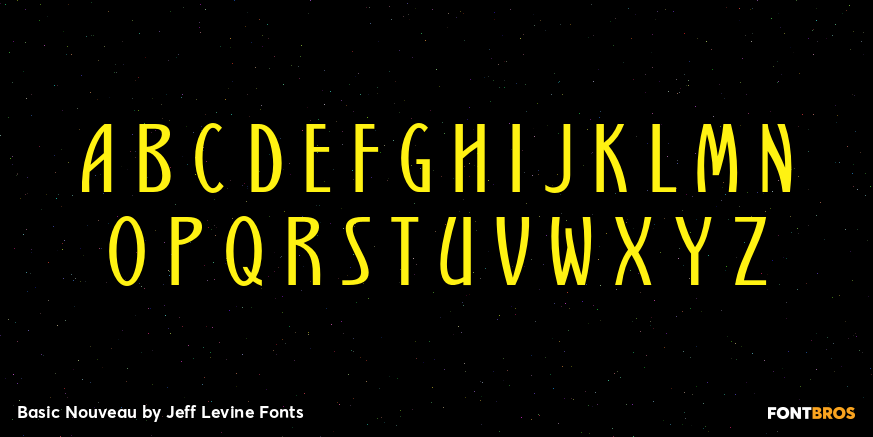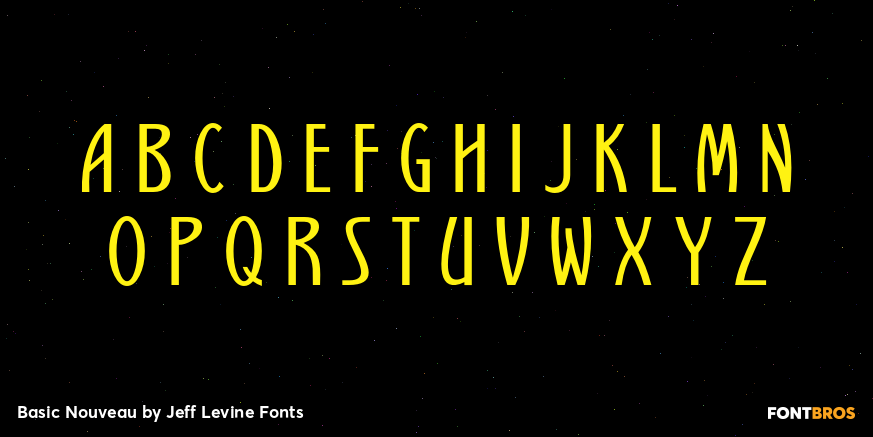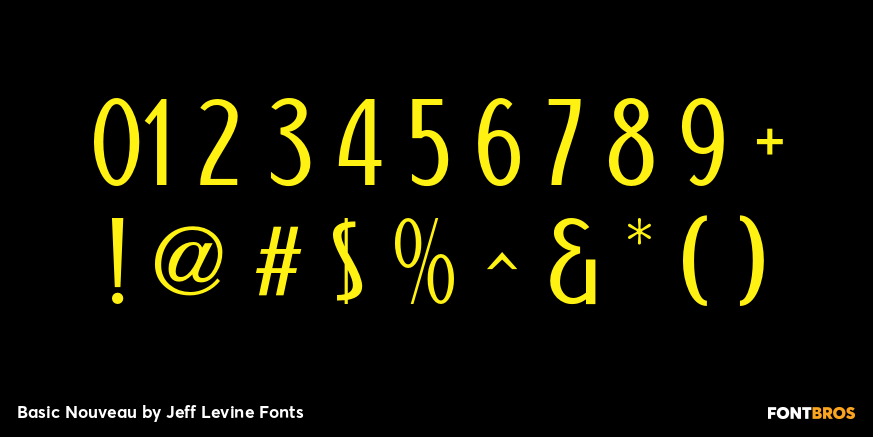
Basic Nouveau
The 1913 sheet music for 'You'll Be Welcome When You Get Back Home” had its title hand lettered in a simple, yet attractive Art Nouveau sans serif design which has been preserved as digital type.
Basic Nouveau JNL is available in both regular and oblique versions.